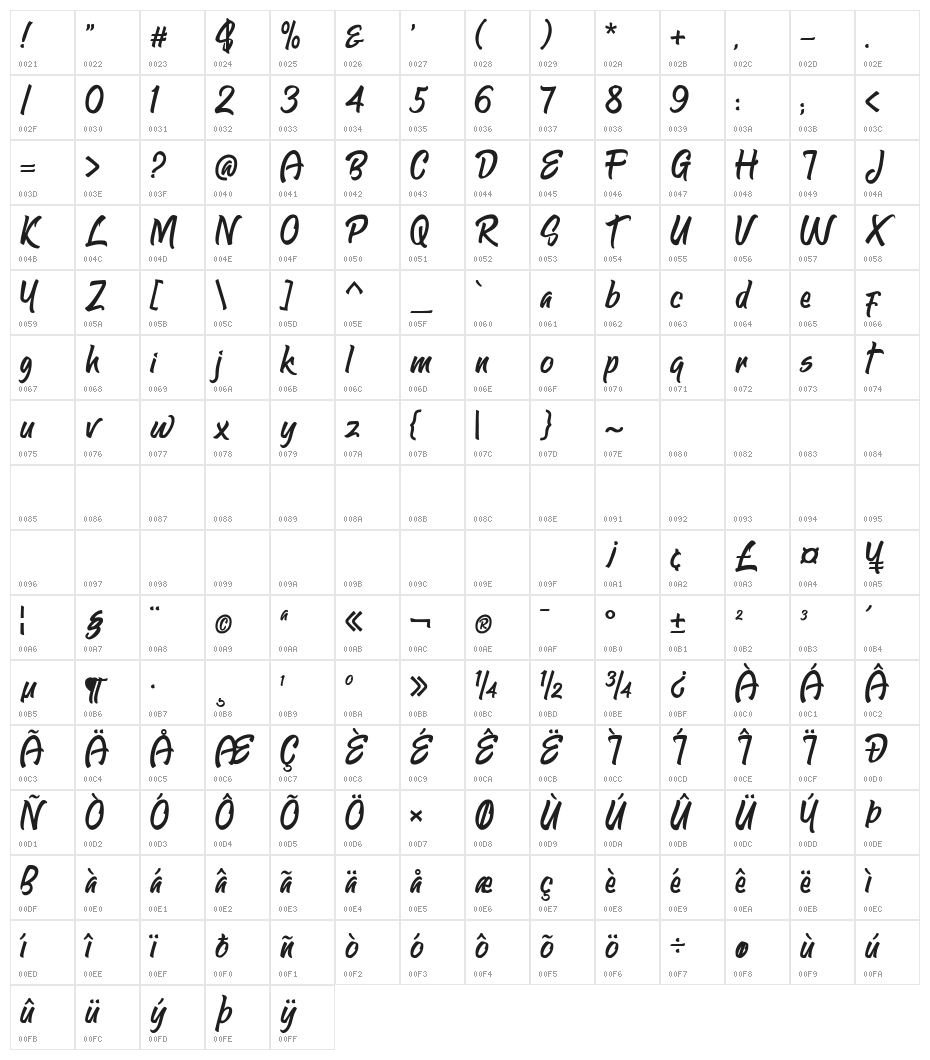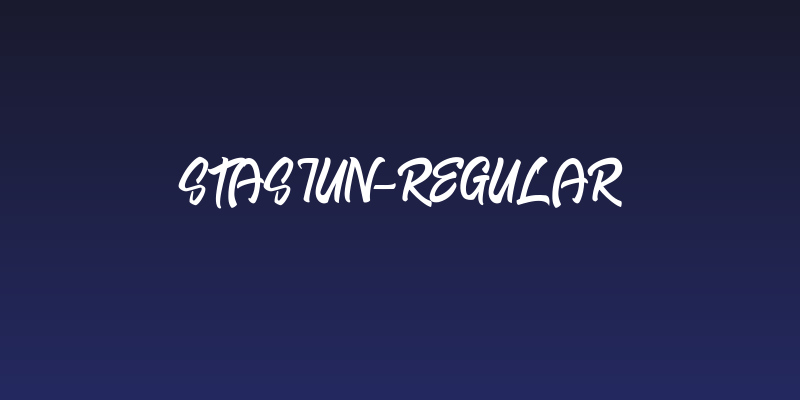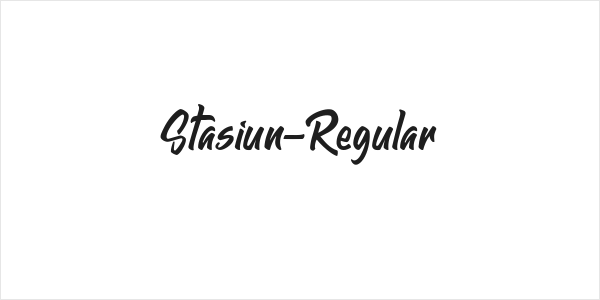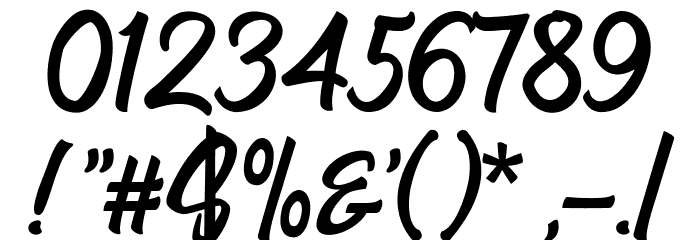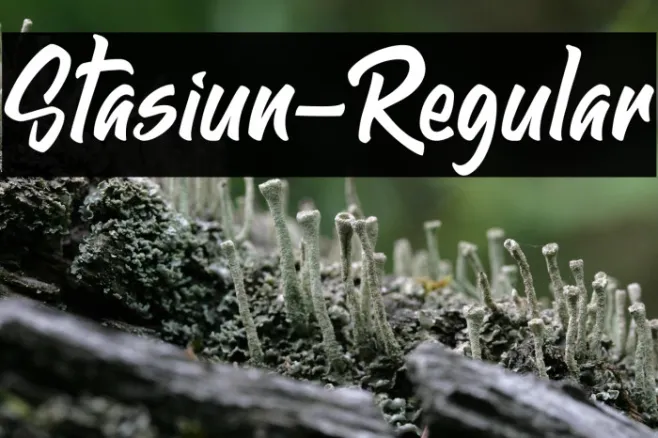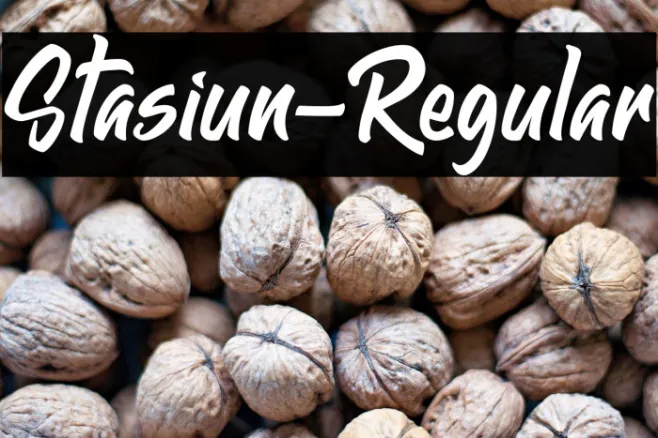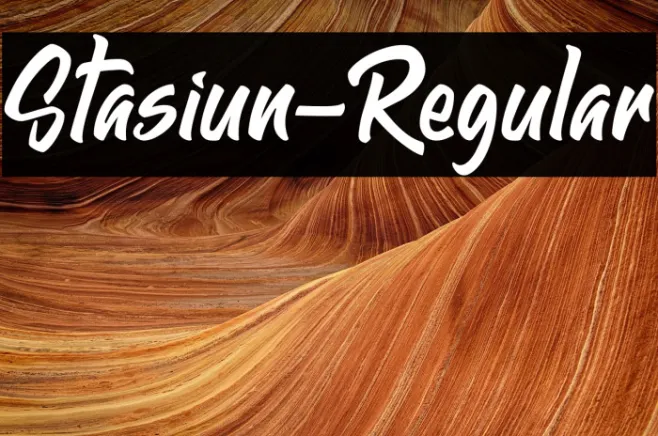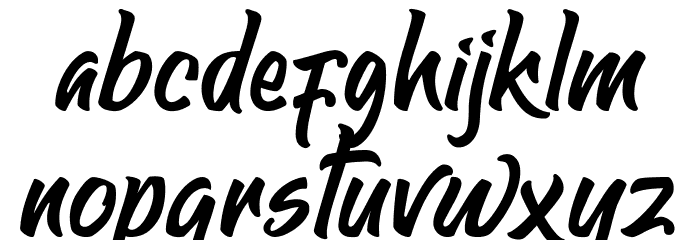
Stasiun-Regular Font
Stasiun-Regular Description
This font features a dynamic and energetic script style with a bold presence. The letters are interconnected, creating a fluid and continuous flow that mimics natural handwriting. The uppercase characters are slightly larger and more pronounced, while the lowercase letters maintain a consistent rhythm. The numerals are clear and legible, matching the overall style of the alphabet. Special characters are included, maintaining the same bold and expressive quality. This font is ideal for projects that require a personal touch or a sense of movement and creativity.
| Proposed Projects | Ideal for branding, invitations, greeting cards, and creative posters. |